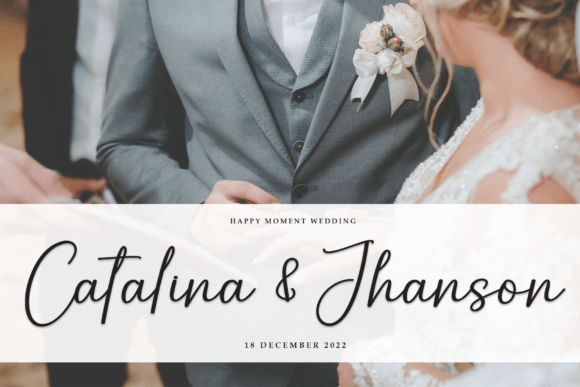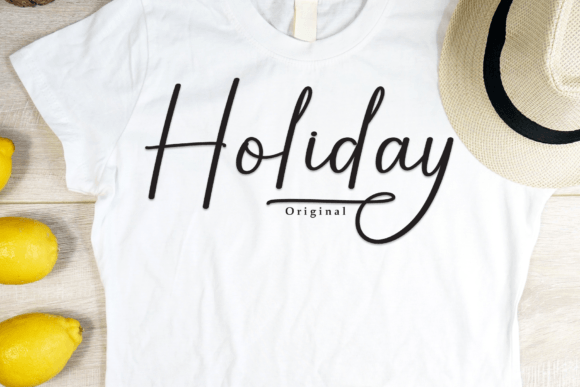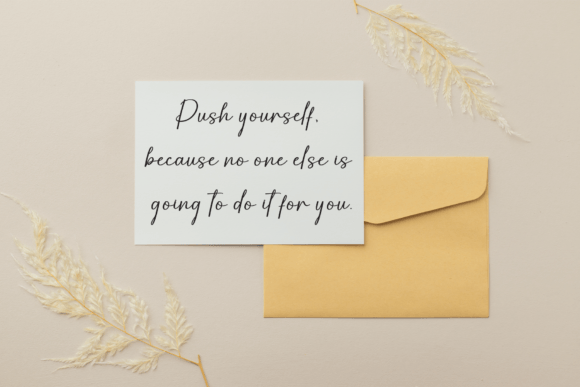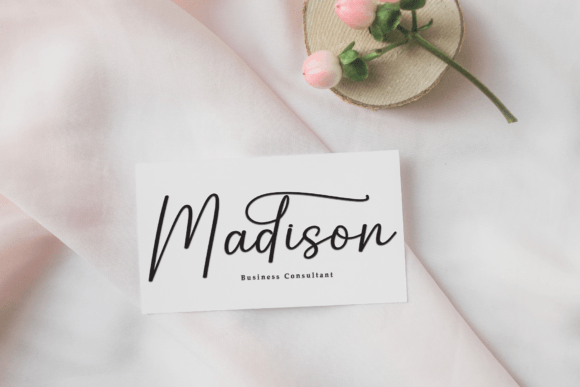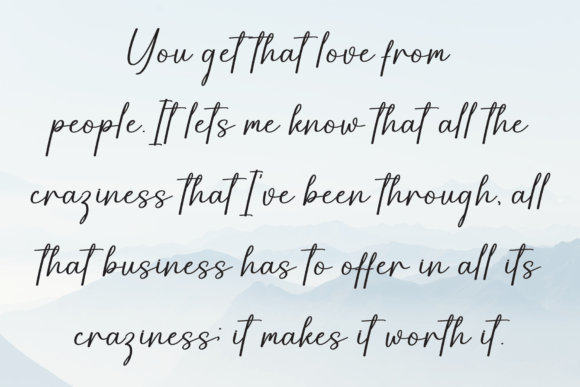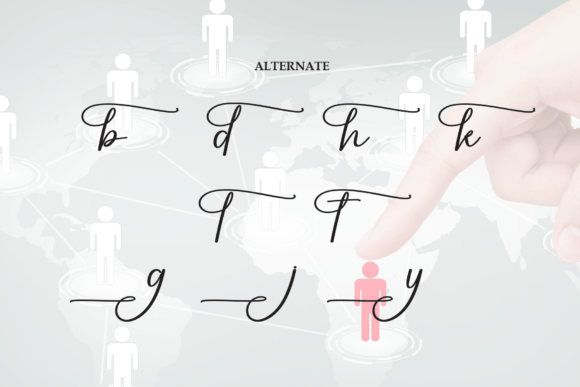
Introduction to Linking Font Font
Fonts play a crucial role in design, and the Linking Font font is a typeface that brings both character and versatility to any project. Whether you’re working on a branding project, a website, or a print design, the Linking Font font offers a unique style that can elevate your work.
Linking is a sweet and friendly handwritten font that exudes warmth and approachability.
Its gentle curves and soft lines create a welcoming tone, making it perfect for heartfelt messages, invitations, and personal touches .
The Linking Font font is more than just a typeface – it’s a design tool that helps you communicate your message with style and clarity. Its unique character set and versatile design make it suitable for a wide range of applications, from elegant invitations to bold headlines.
With its carefully crafted letterforms and balanced proportions, the Linking Font font ensures readability and visual appeal across all mediums.
The Linking Font font stands out with its unique design, exceptional readability, and versatility across various design applications.